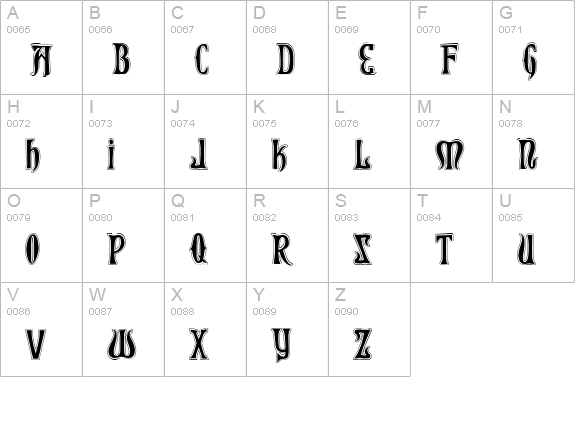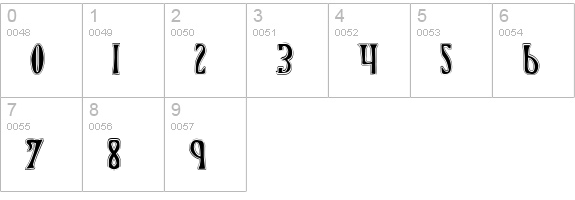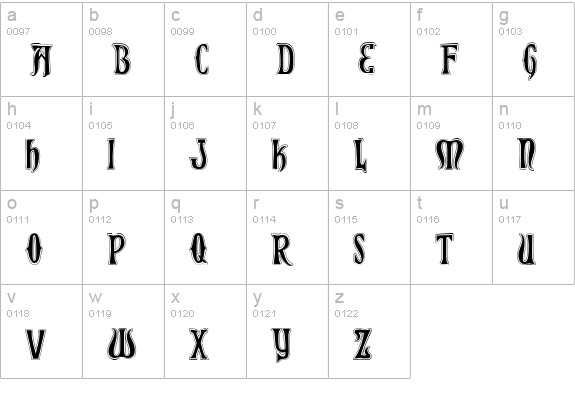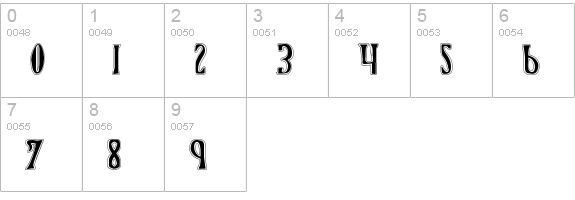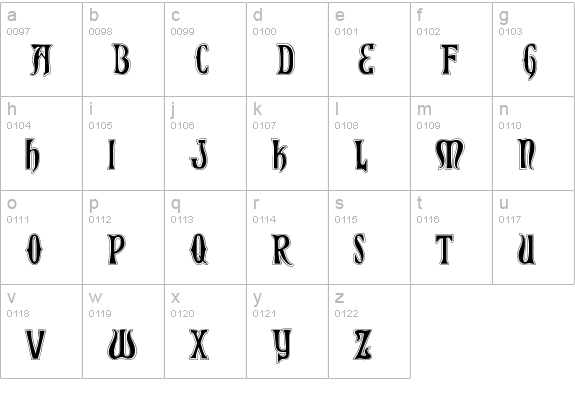
Xiphos College font embodies a unique blend of sophistication and modernity, making it a versatile choice for a wide range of design projects. With its bold and elegant letterforms, this font exudes a sense of professionalism and creativity. Whether used for headings, logos, or body text, Xiphos College adds a touch of sophistication to any design. What sets Xiphos College apart is not only its striking aesthetic appeal but also its accessibility. This font is available for free download at FontsMarket.com, allowing designers and creatives to access its premium quality without any cost. Embrace the timeless elegance of Xiphos College font and elevate your design projects with its distinct charm and versatility.